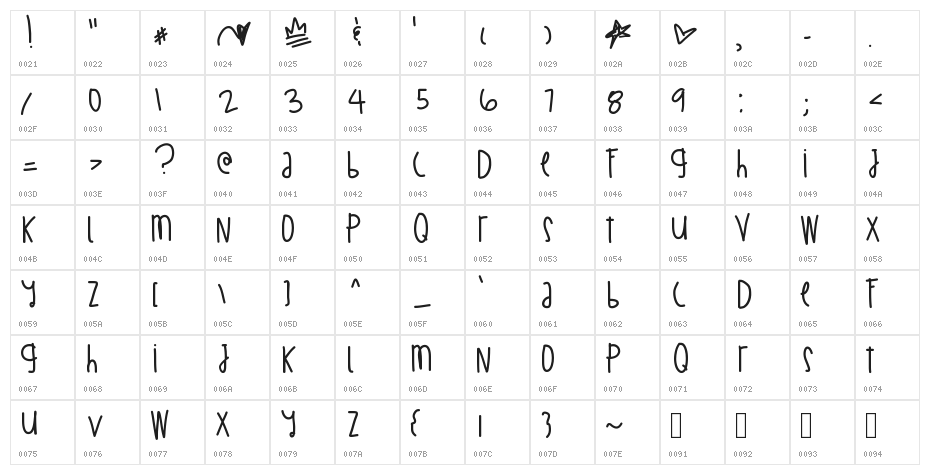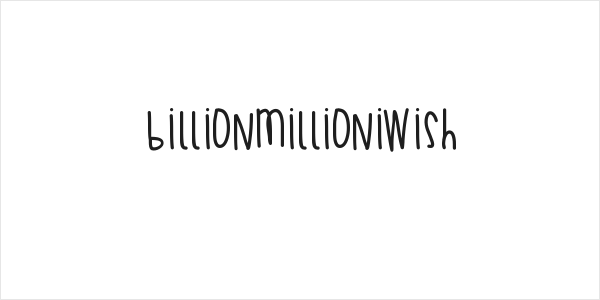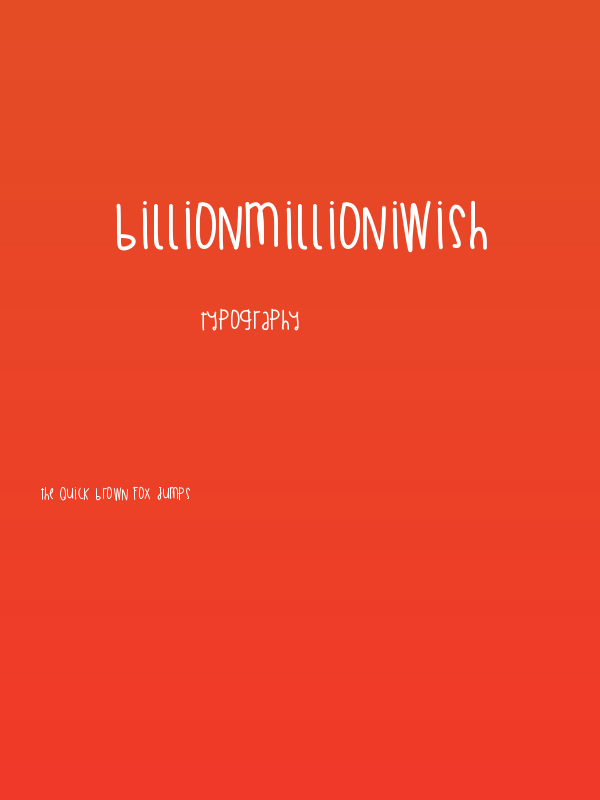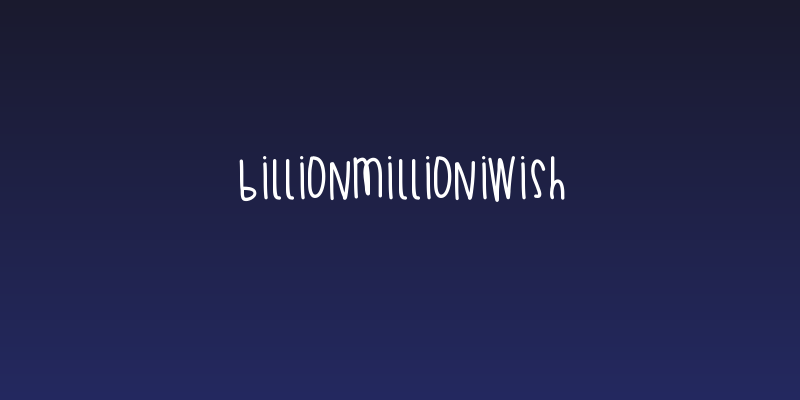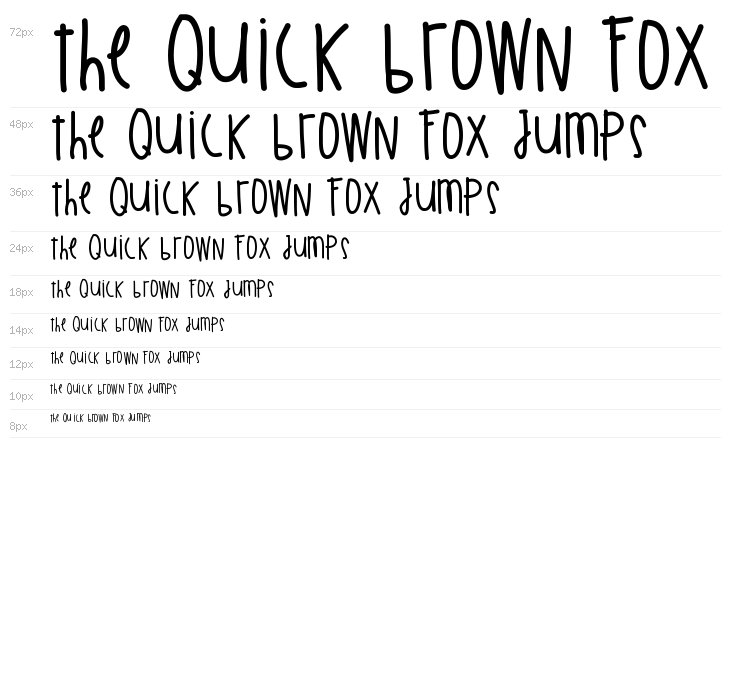
BillionMillionIWish Font
BillionMillionIWish Description
This playful and whimsical font features a handwritten style with a casual, informal appearance. The characters are tall and slightly narrow, with a consistent stroke width that gives it a uniform look. The rounded edges and smooth curves add a friendly and approachable feel. The uppercase and lowercase letters maintain a similar height, creating a cohesive and balanced design. Numbers and special characters are included, each with unique, quirky details that enhance the font's charm. The overall style is modern and fun, making it suitable for creative projects.
| Overall Style | Modern, Whimsical |
| Proposed Projects | Ideal for children's books, greeting cards, playful branding, and social media graphics. |